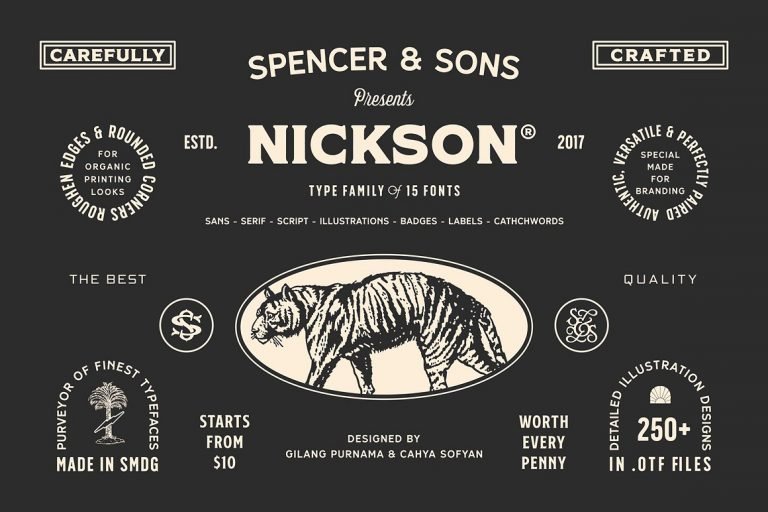
S&S Nickson Typeface
With this type you can create perfect and unique design of your logo, blog, stationery, marketing, apps, ebooks, broadcast television, commercial exhibition, film, gaming, software embedding, customized print on demand products, etc. Introducing S&S Nickson Font. It is designed and shared by Spencer & Sons Co. Nickson Font Family includes 15 fonts that have different styles from each other but at the same time perfectly paired when used together. Nickson Font Family Collection was designed carefully to create elegant typographic works. It would be a perfect choice to design posters, affiches, logos, t-shirt and magazine prints, eye-pleasing typographic designs and more.